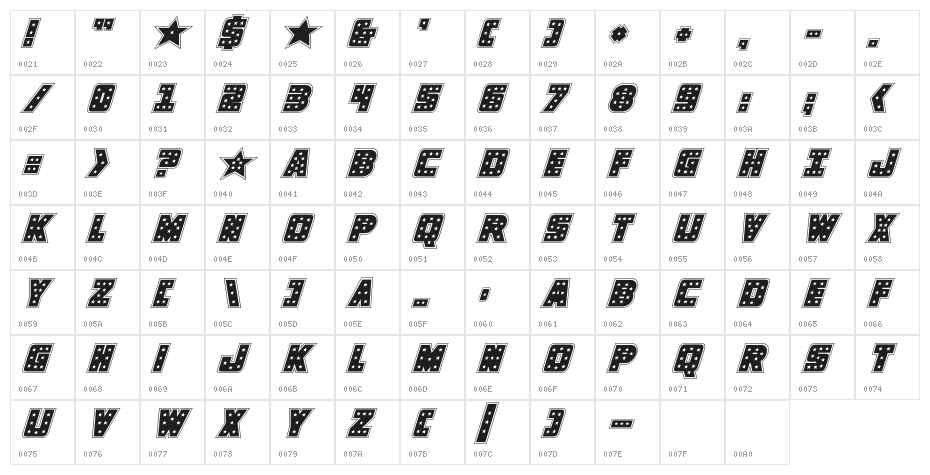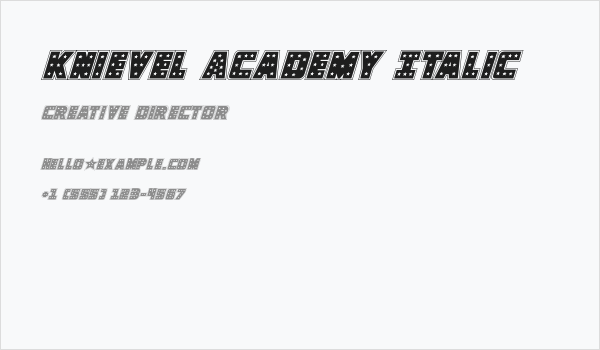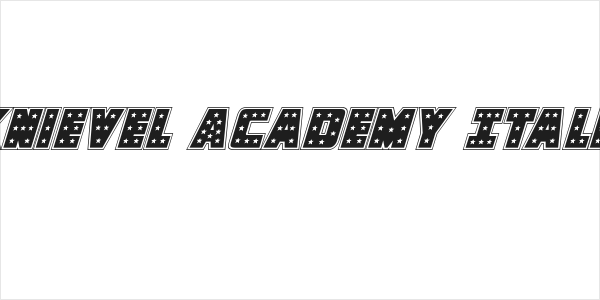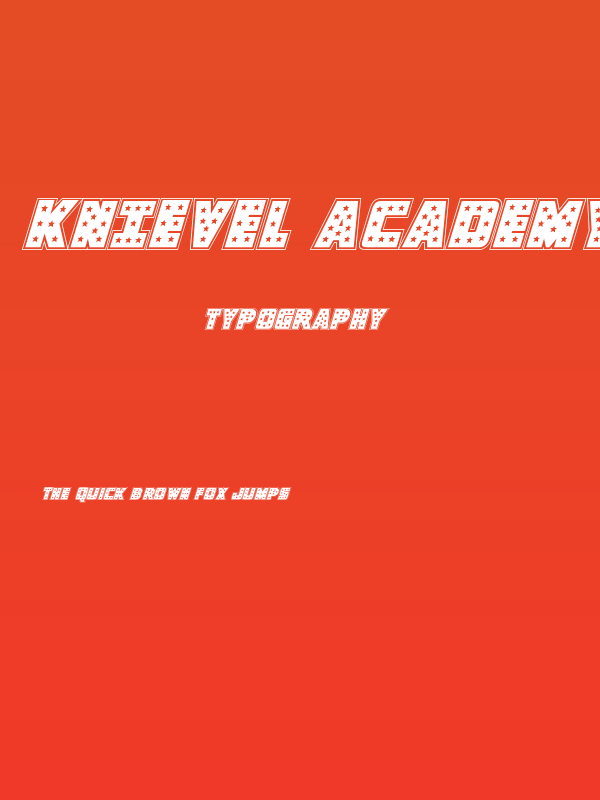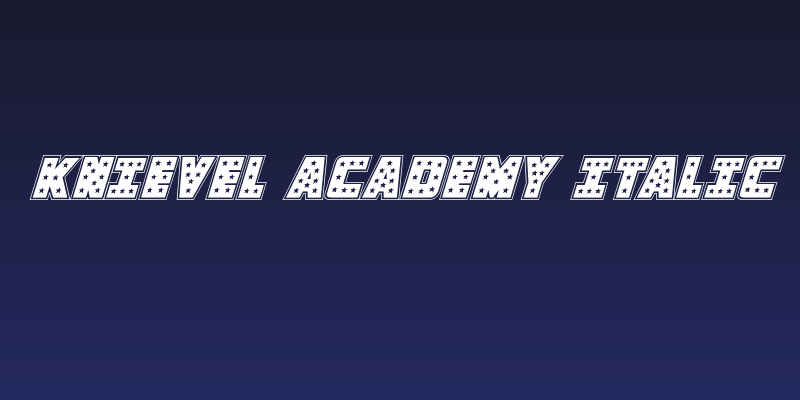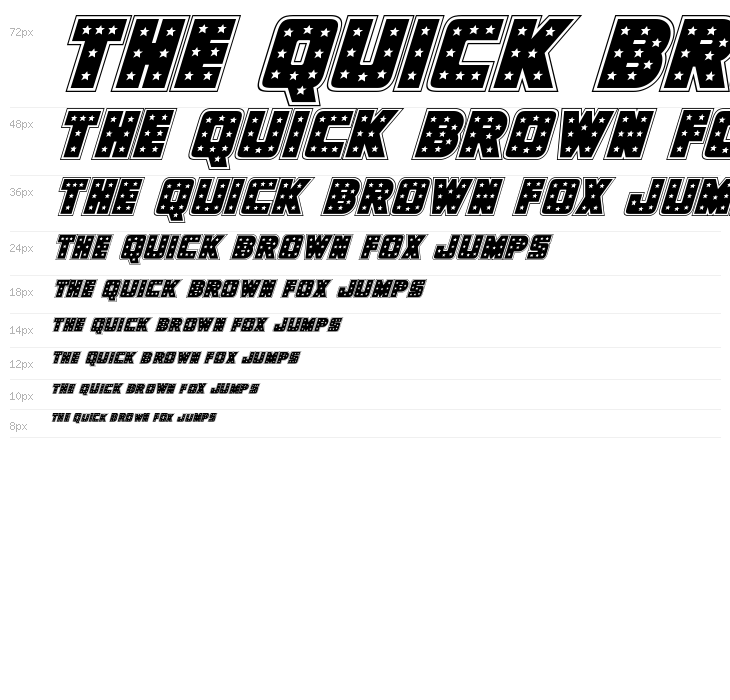
Knievel Academy Italic Font
Knievel Academy Italic Description
This font features a bold, italicized style with a unique decorative pattern of stars filling each character. The letters are outlined, adding a distinct, eye-catching effect. The uppercase and lowercase letters maintain a consistent design, with the stars providing a playful and dynamic look. The numbers and special characters follow the same theme, ensuring a cohesive appearance across all elements. This font's strong visual impact makes it ideal for projects that require a bold statement.
| Proposed Projects | Ideal for posters, event flyers, and branding materials that require a bold and playful aesthetic. |